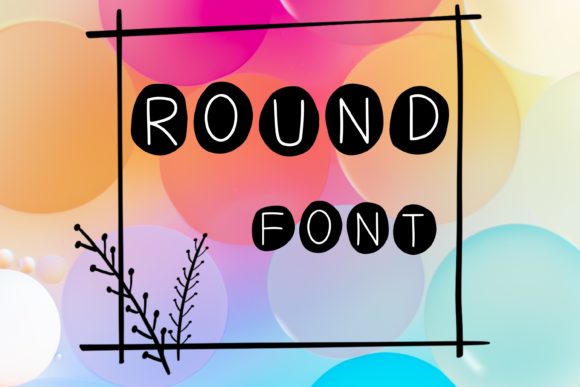
Feast your eyes on the Round Font, an enthralling display font that exudes minimalism and neatness. This font is an absolute game-changer, capable of transforming your creative projects into captivating masterpieces. Prepare to be amazed as you witness the remarkable transformation that the Round Font brings to your designs. Its clean lines and elegant curves dance together in perfect harmony, creating a visual symphony that will leave you spellbound.
With the Round Font at your disposal, you'll unlock a world of possibilities. Whether you're crafting eye-catching flyers for your upcoming event, designing stunning posters that demand attention, or creating social media posts that pop, this font will elevate your creations to new heights. Round Font is a versatile chameleon, effortlessly adapting to any project you throw its way. From whimsical invitations to captivating branding materials, this font will make your designs shine brighter than ever before.
But what truly sets the Round Font apart is its ability to evoke emotions. Each letter, meticulously crafted, carries a weight of meaning, effortlessly conveying your message with power and clarity. Its smooth edges and flowing curves invite your audience to engage with your content, creating a connection that goes beyond words. With the Round Font as your visual ambassador, your designs will resonate with your audience on a deeper level, leaving a lasting impression that they won't soon forget.
Dare to break free from the ordinary and embrace the extraordinary with the Round Font. Let your creativity soar as you explore the endless possibilities that this remarkable display font presents. Say goodbye to bland and boring designs and embrace a world of visual enchantment. Experience the transformative power of the Round Font today and watch as your projects come alive with captivating beauty and captivating charm.
So, why settle for ordinary when you can have extraordinary? Dive into the world of the Round Font and unleash your creative potential. Let your imagination run wild as you create designs that captivate, inspire, and leave an unforgettable mark on your audience. Join the ranks of those who dare to be different, those who embrace the power of exceptional typography. The Round Font awaits, ready to elevate your designs to new heights of brilliance.